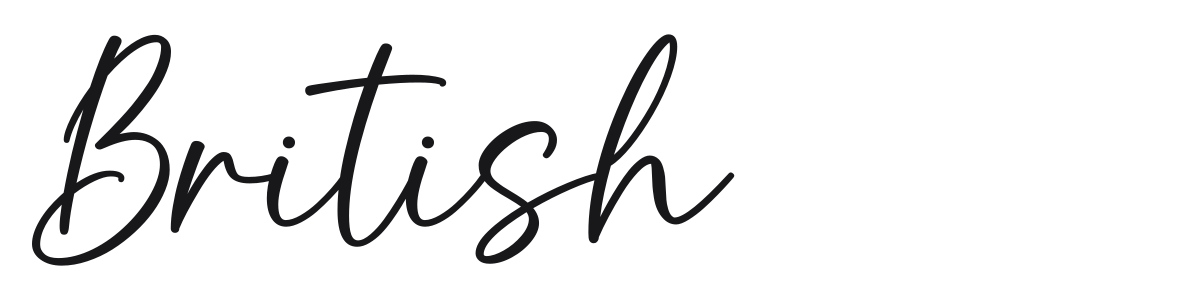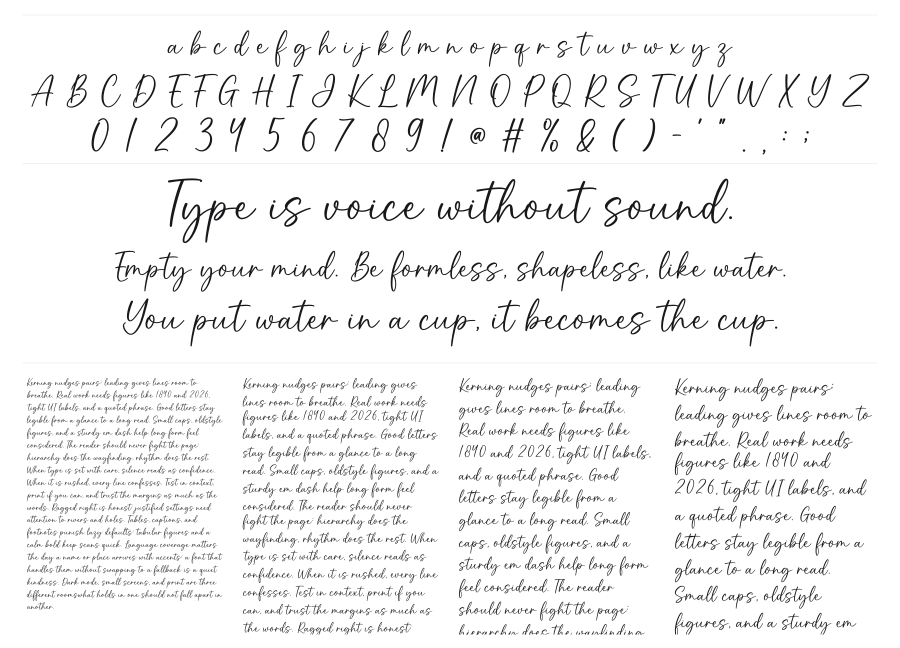
British
British is a flowing casual script with light, connected strokes and graceful looping ascenders. It draws from the feel of modern calligraphy, keeping things airy and relaxed rather than stiff or formal. The result sits comfortably across wedding stationery, lifestyle branding, and boutique packaging.